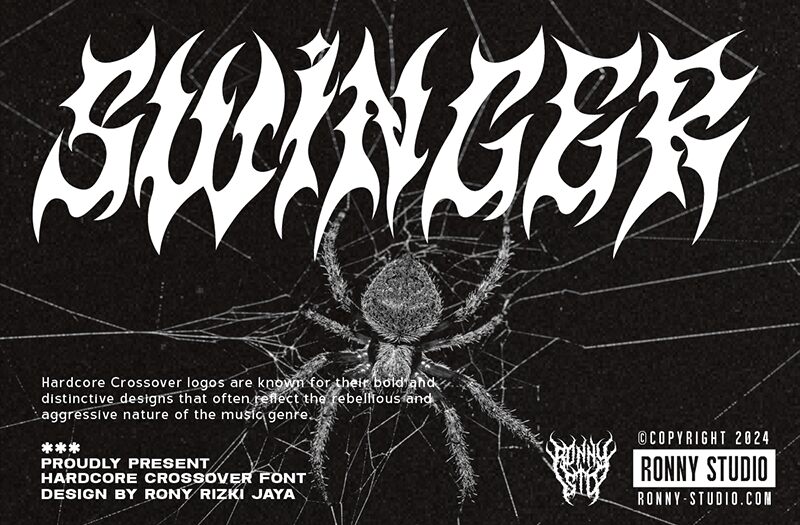
Swinger font by Ronny Studio is a modern, condensed gothic font with a bold, edgy vibe. It has an aggressive structure and tribal-inspired shapes that make it an instant scene-stealer. This exceptional typeface is highly artistic, rebellious, and futuristic which makes it highly successful as a display typeface.
The free font fits the demands of many fields including films, TV series covers or movie posters. Add texts for your board game cards, gaming logo designs or any online games website. Swingers also go on book covers, apparel prints such as t-shirts for men or hoodies and so much more!